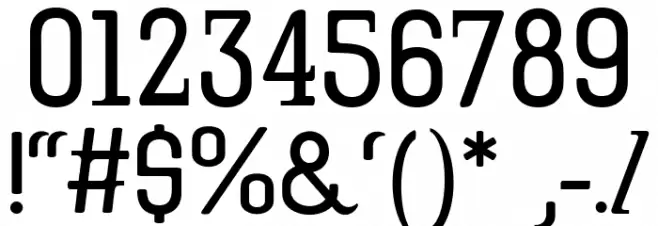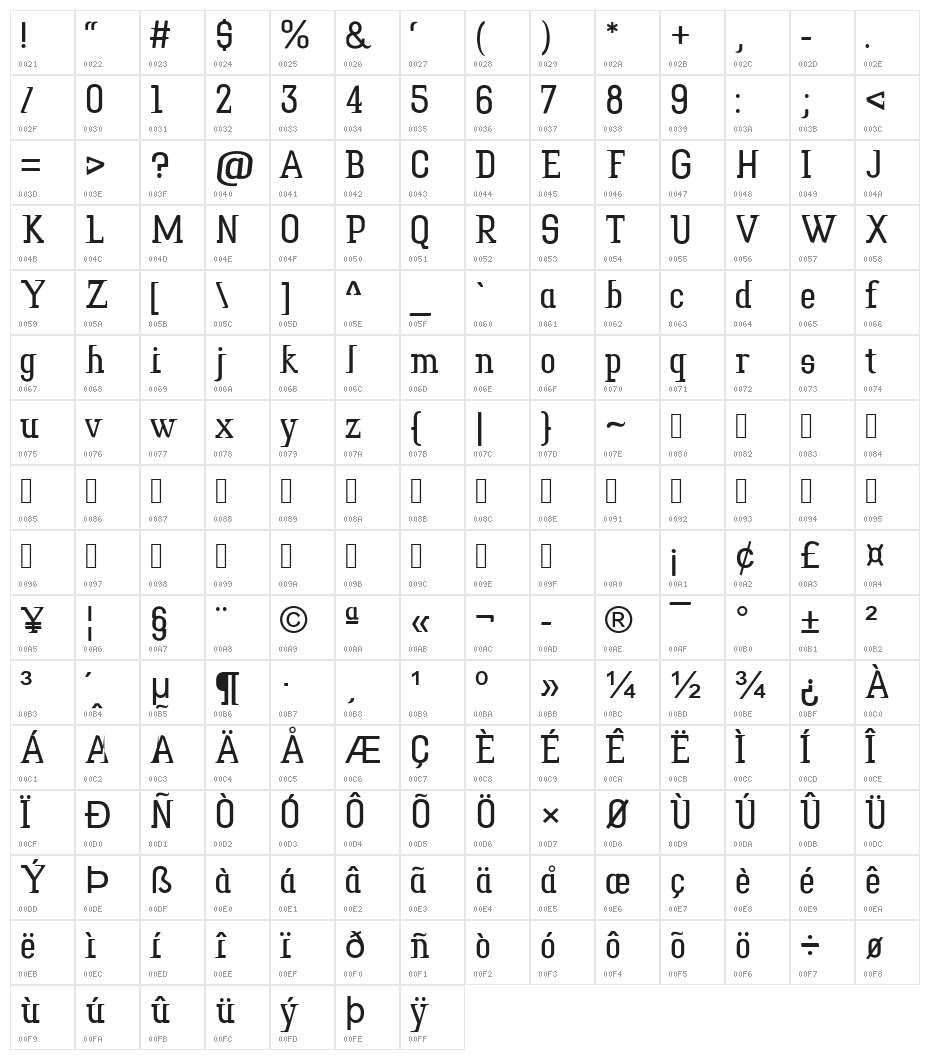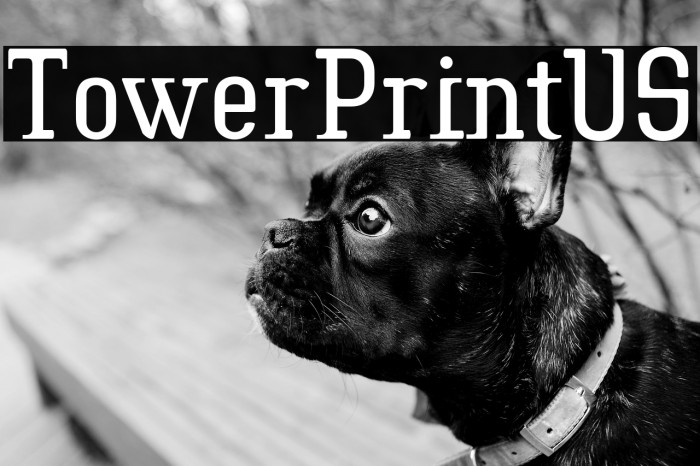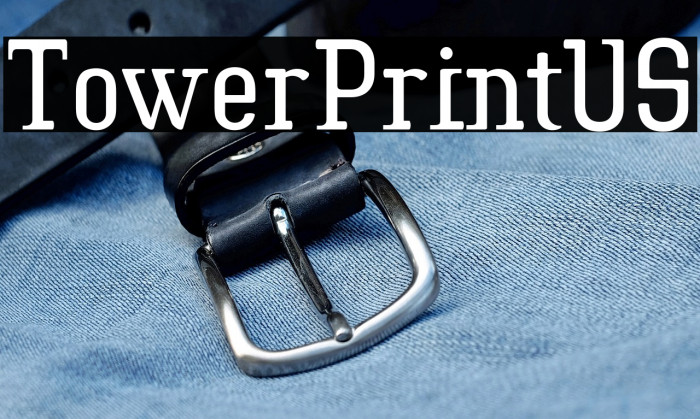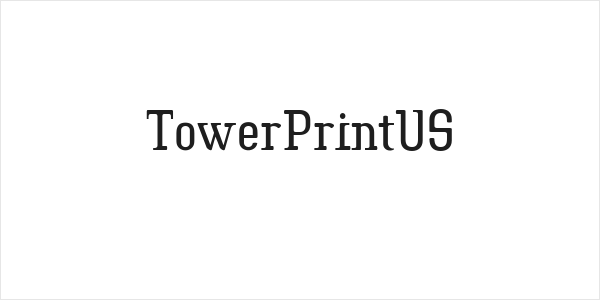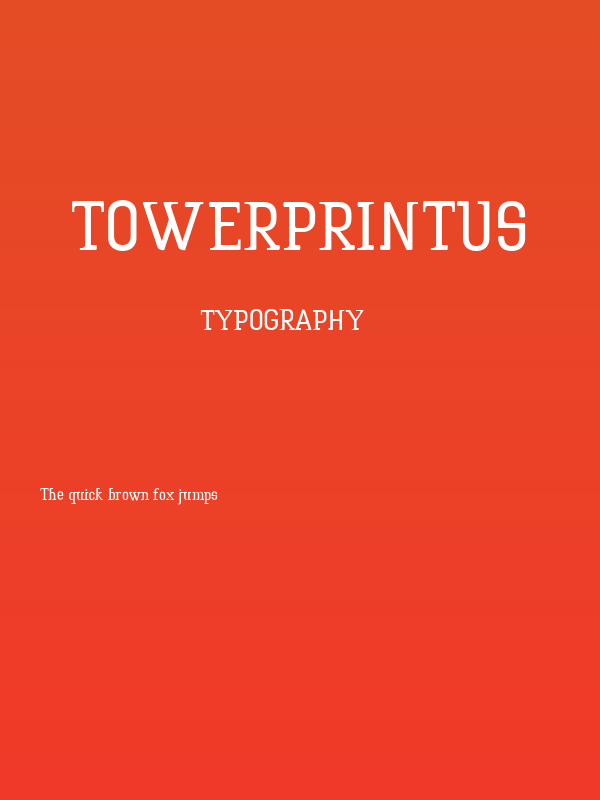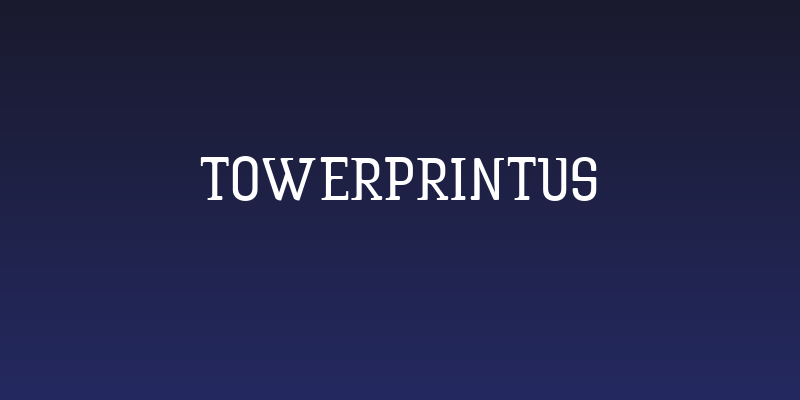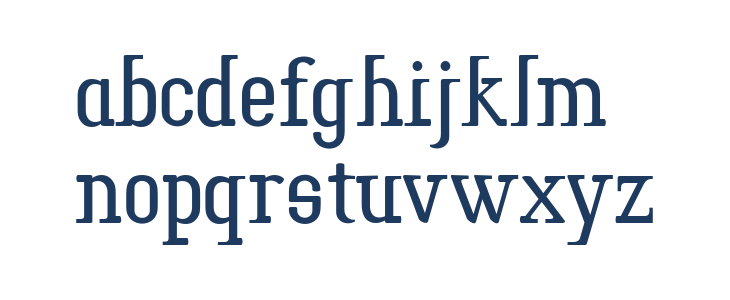
TowerPrintUS Font
TowerPrintUS Description
This font features a robust and structured design, characterized by its slab serif style. The uppercase letters exhibit a strong presence with uniform stroke widths, while the lowercase letters maintain a consistent and balanced appearance. The numerals are clear and legible, making them suitable for various applications. The special characters are well-integrated, complementing the overall aesthetic. The font's design is both modern and classic, offering versatility for a range of uses. Its boldness and clarity make it ideal for headlines and display purposes, while its structured form ensures readability in body text.
| Overall Style | Modern Classic |
| Proposed Projects | This font is perfect for branding projects, editorial design, signage, and packaging. Its clarity and boldness make it suitable for both print and digital media. |